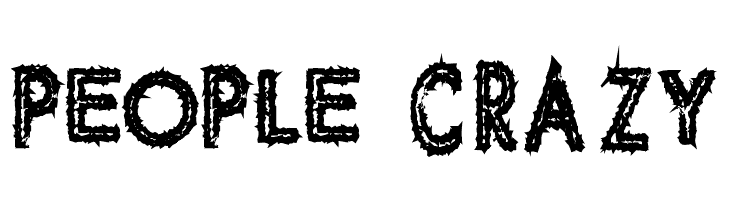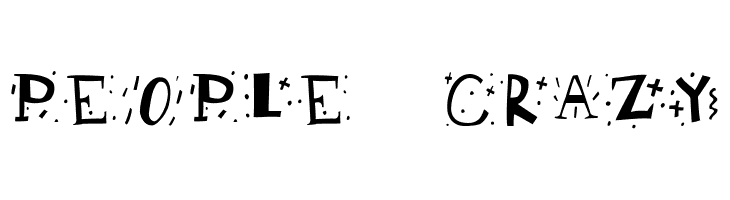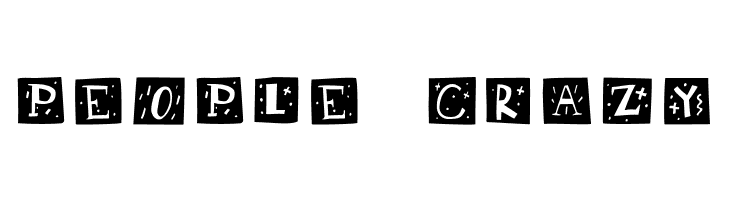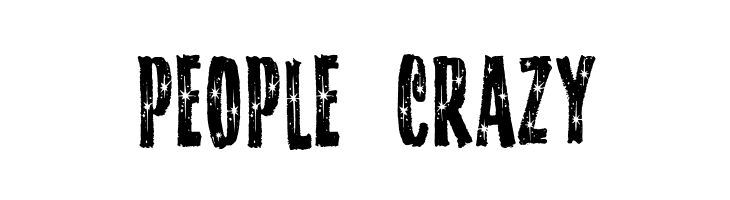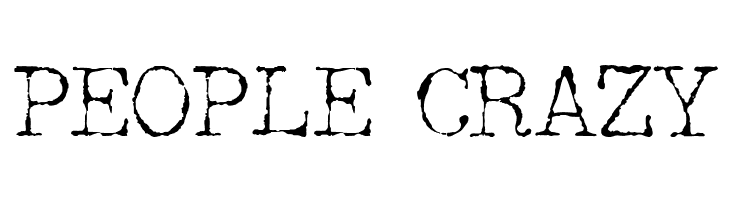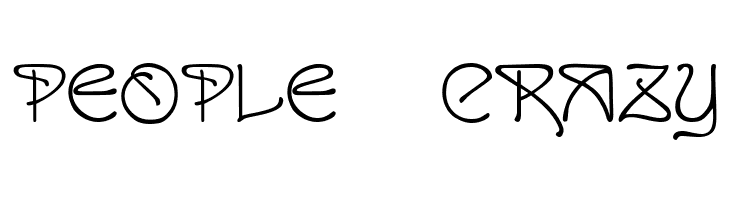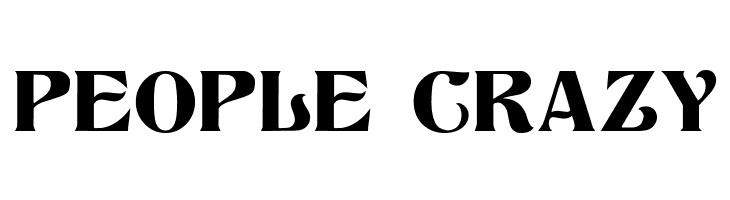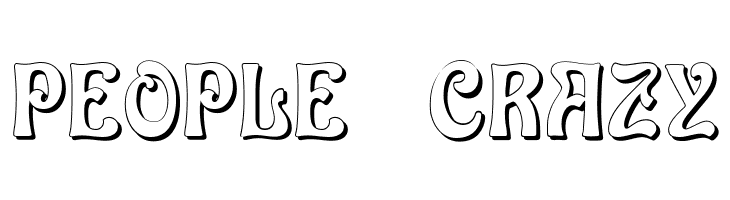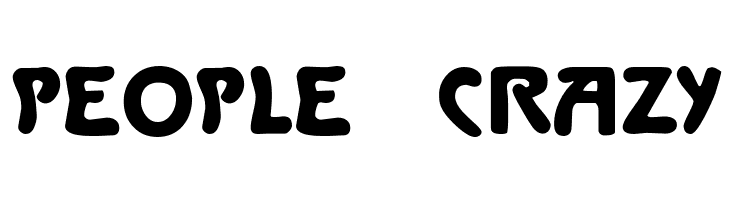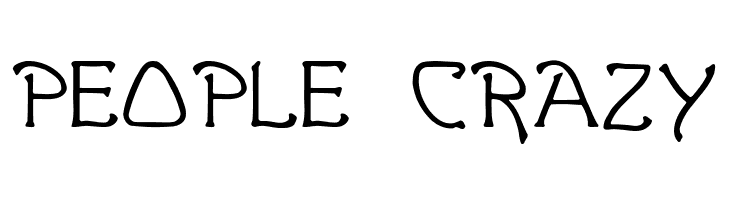
A bold, spiky font with jagged edges and a rugged, artistic style.
A bold, distressed font with a vintage, rugged appearance.
A bold, distressed font with a grunge, textured appearance.
A playful, melting-style decorative font with a bold, hand-drawn appearance.
A bold, distressed font with star patterns and a vintage feel.
A vintage, textured serif font with a distressed, typewriter-like appearance.
A bold, distressed font with a rugged, grunge aesthetic.
An ornate and decorative font with artistic curves and flourishes.
A bold, vintage-inspired serif font with high contrast and dramatic serifs.
A bold, decorative font with a medieval-inspired aesthetic.
A bold, shadowed font with decorative flair and three-dimensional appearance.
A bold, decorative font with a playful yet strong style.
A playful, bold font with an open shadow effect and vintage carnival style.
A bold, decorative font with a playful, vintage carnival theme.
A bold, playful font with rounded edges and a vintage-modern appeal.
A playful, hand-drawn font with artistic flair and dynamic strokes.
A bold, high-contrast font with dynamic curves and elegant style.
A whimsical, Easter-themed decorative font featuring eggs and bunnies.
A classic blackletter font with ornate, medieval-inspired letterforms.
A traditional Blackletter font with sharp, angular lines and a dense appearance.
An ornate and decorative font blending traditional and modern styles.
An ornate Blackletter font with sharp, angular lines and gothic flourishes.